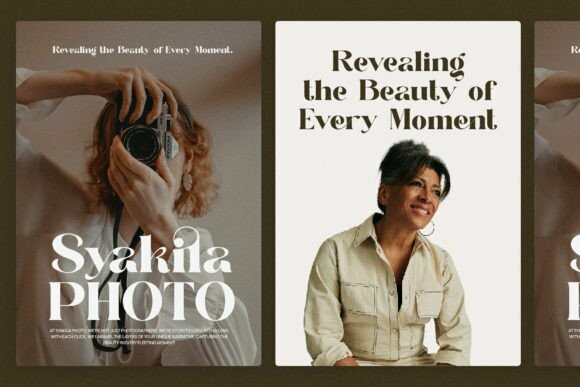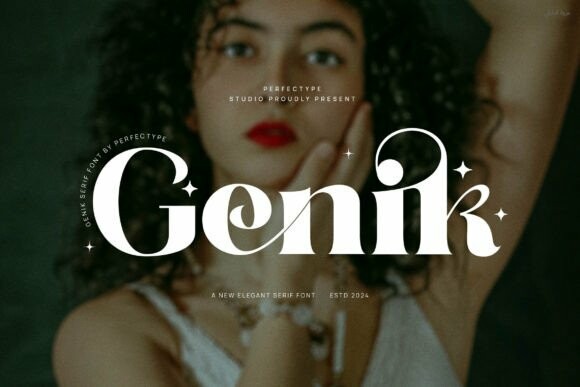
Genik Font
Designer: Perfectype
Genik Font is an elegant serif font, that features a very delicate and classy look. Not too thin and not too thick, balanced and varied, Genik was designed to enhance the beauty of your projects.